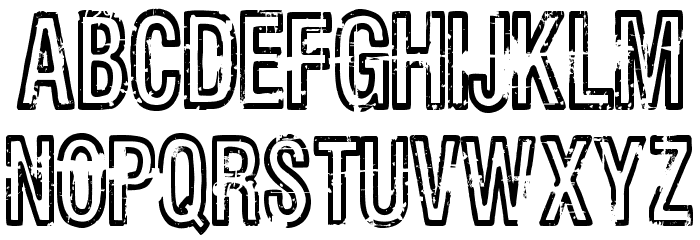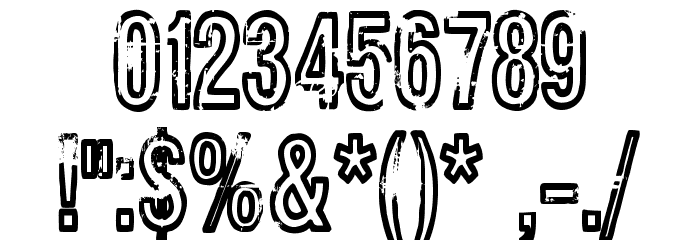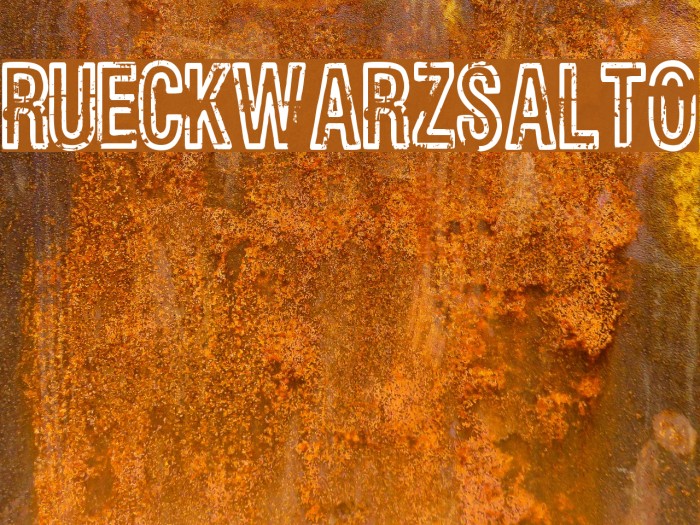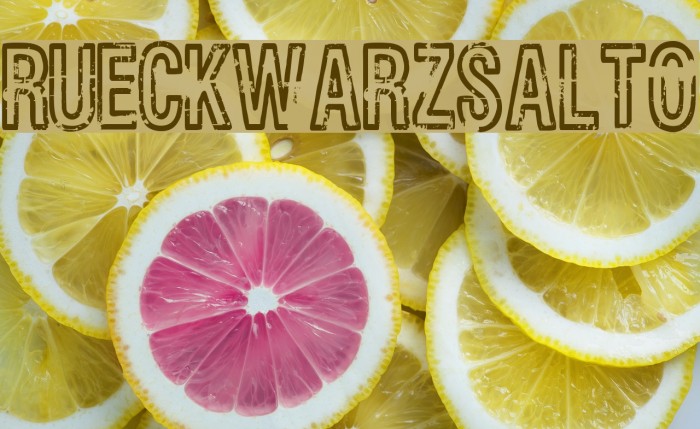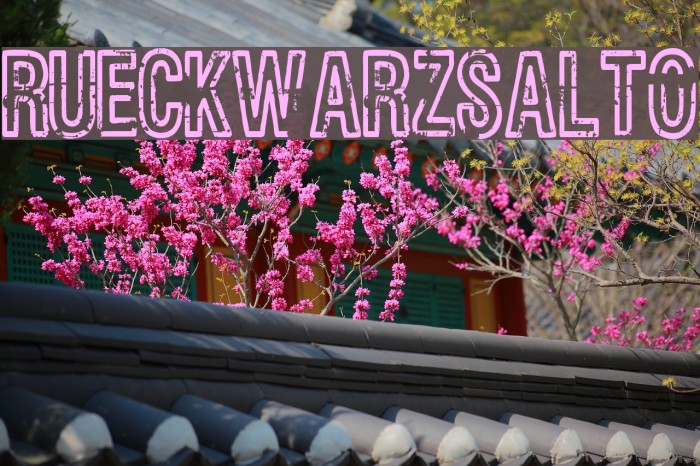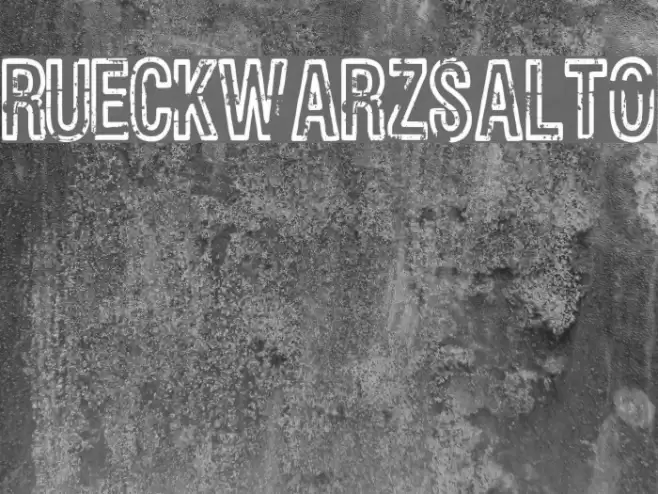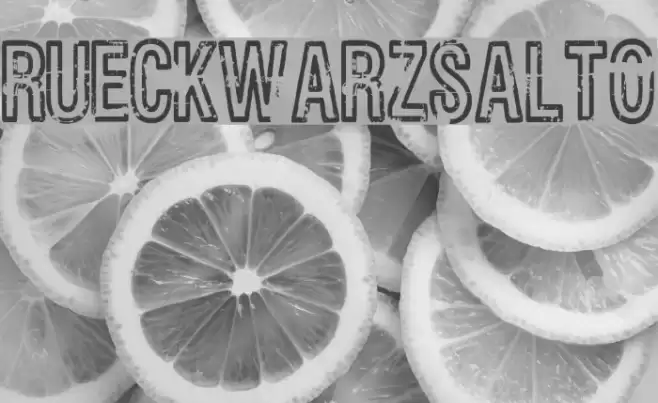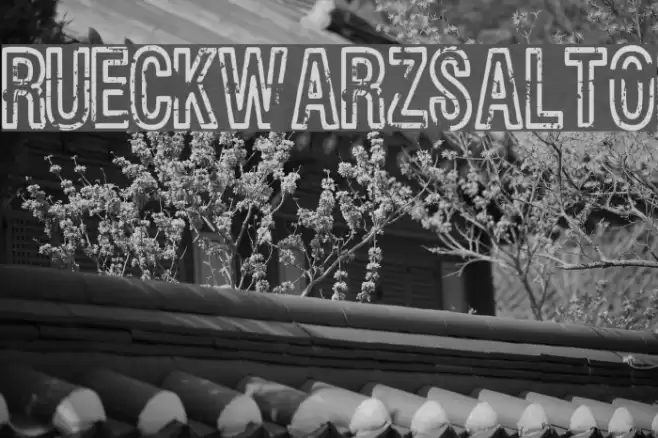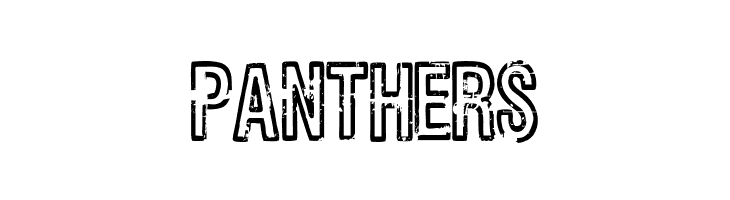
Rueckwarzsalto Font
This font features a bold, distressed style with a textured appearance that gives it a rugged, vintage feel. The uppercase letters are prominent and impactful, making it suitable for attention-grabbing designs. The numbers and special characters maintain the same distressed look, ensuring consistency across all text elements. The font's unique character is enhanced by its rough edges and uneven texture, which add a sense of authenticity and character. It's perfect for projects that require a bold statement or a retro aesthetic.
A bold, distressed font with a rugged, vintage texture.
- Proposed Projects: Ideal for posters, album covers, vintage-themed designs, and branding that requires a bold statement.
- Overall Style: Vintage